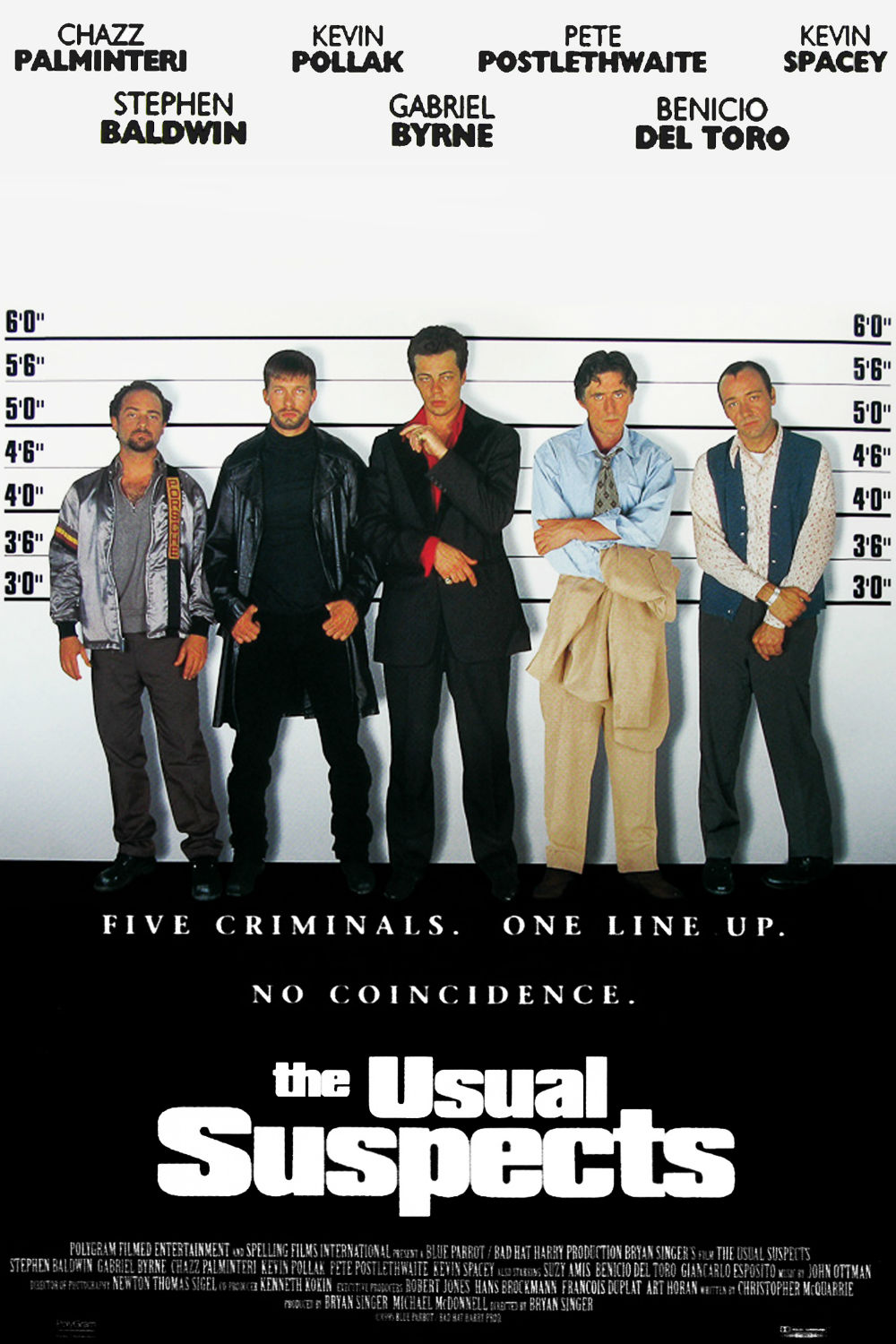
The Usual Suspects Font
CrimeThe Usual Suspects is a 1995 crime thriller film directed by Bryan Singer, featuring a group of criminals who meet in a police lineup and later collaborate on a heist. The film's plot is structured around a mysterious and elusive criminal mastermind known as "Keyser Söze."
The film title on the poster uses Compacta, a narrow and condensed sans-serif font reminiscent of 1920s stenciled fonts for magazines and posters. It was designed by Fred Lambert.